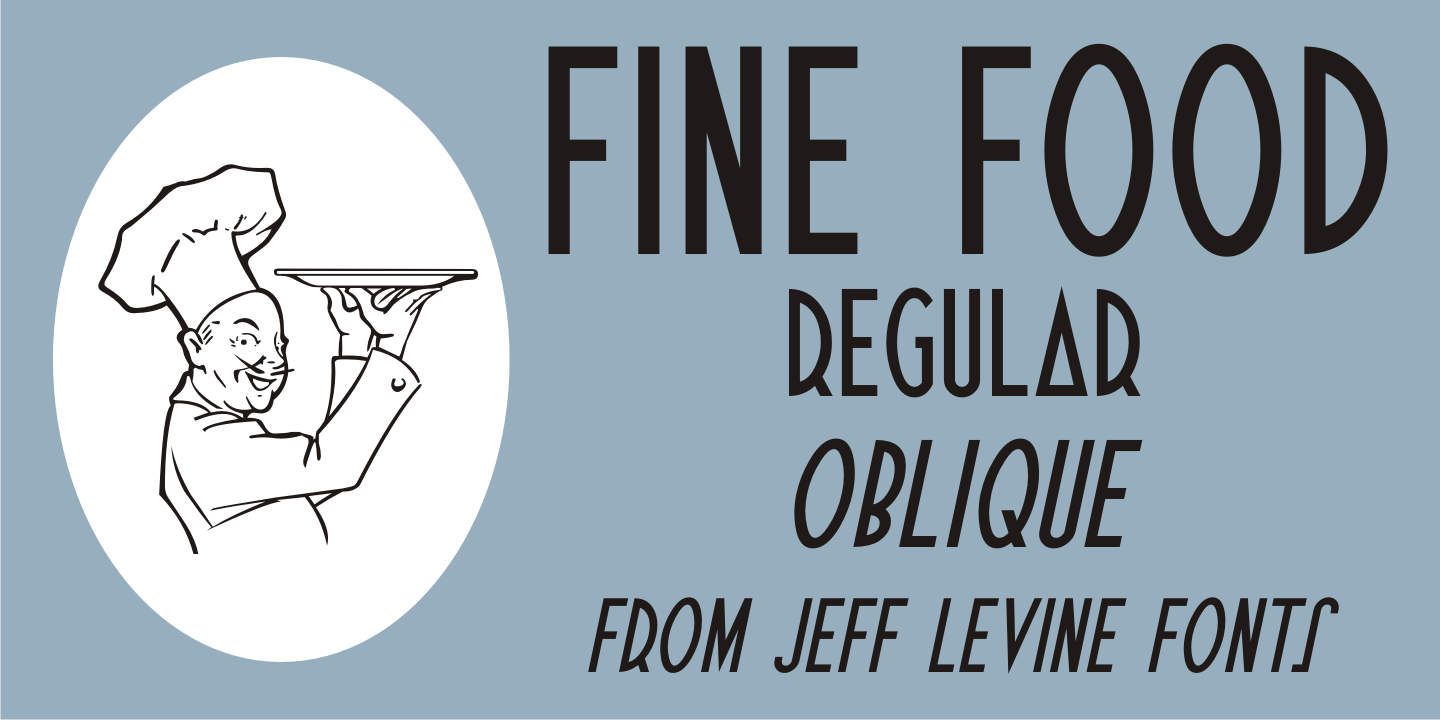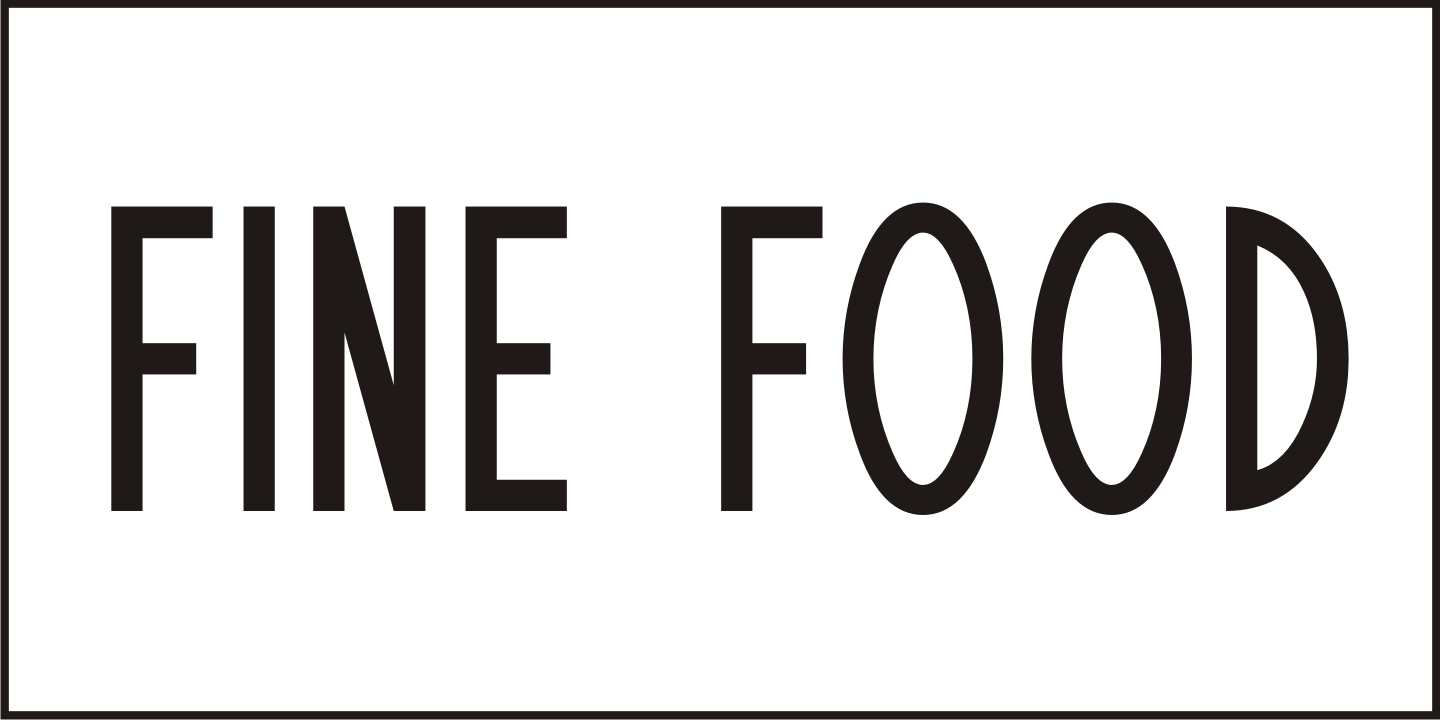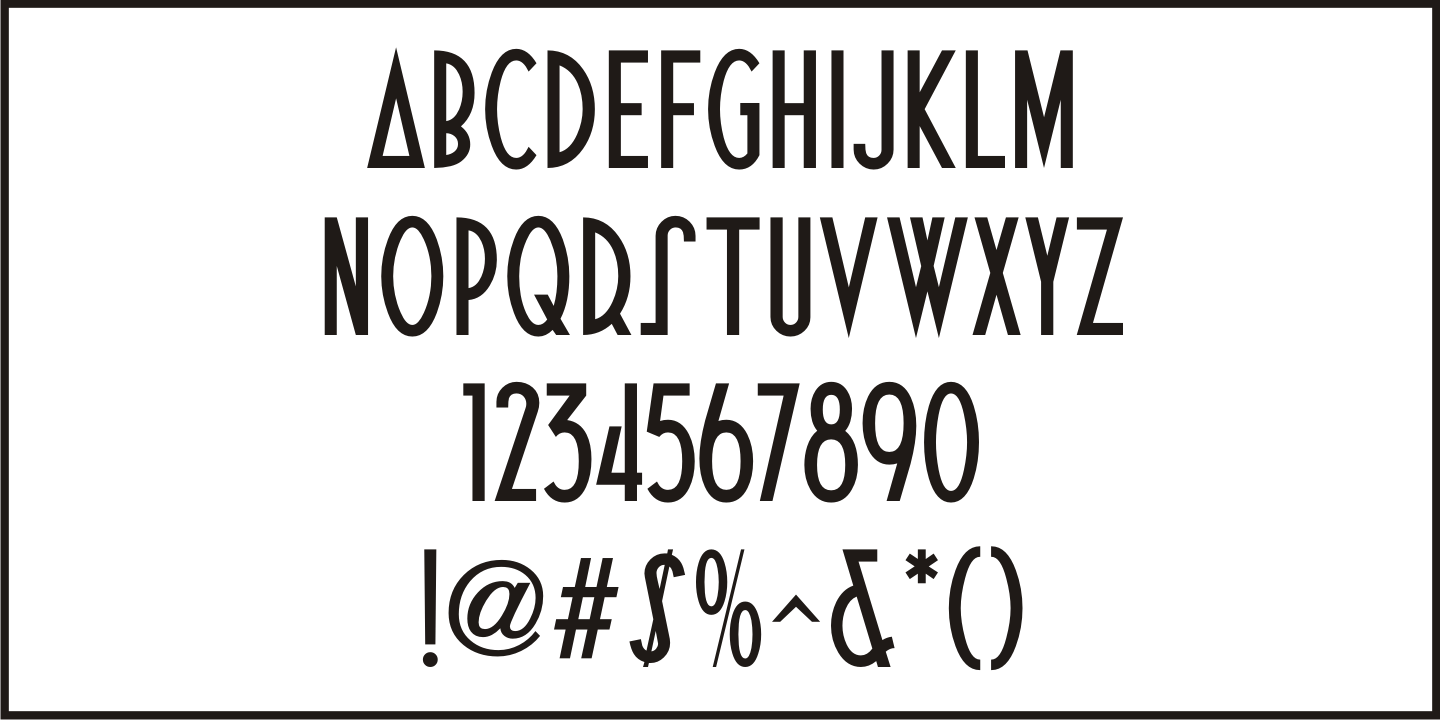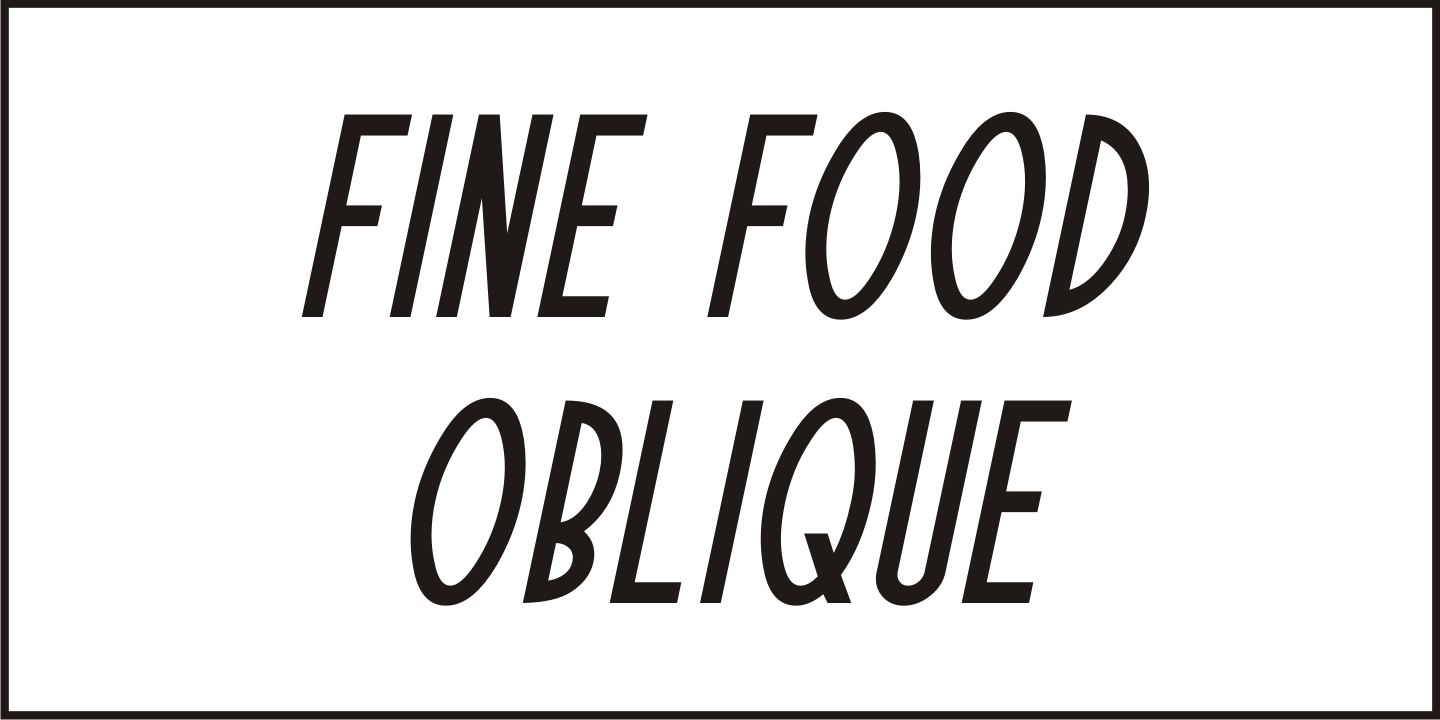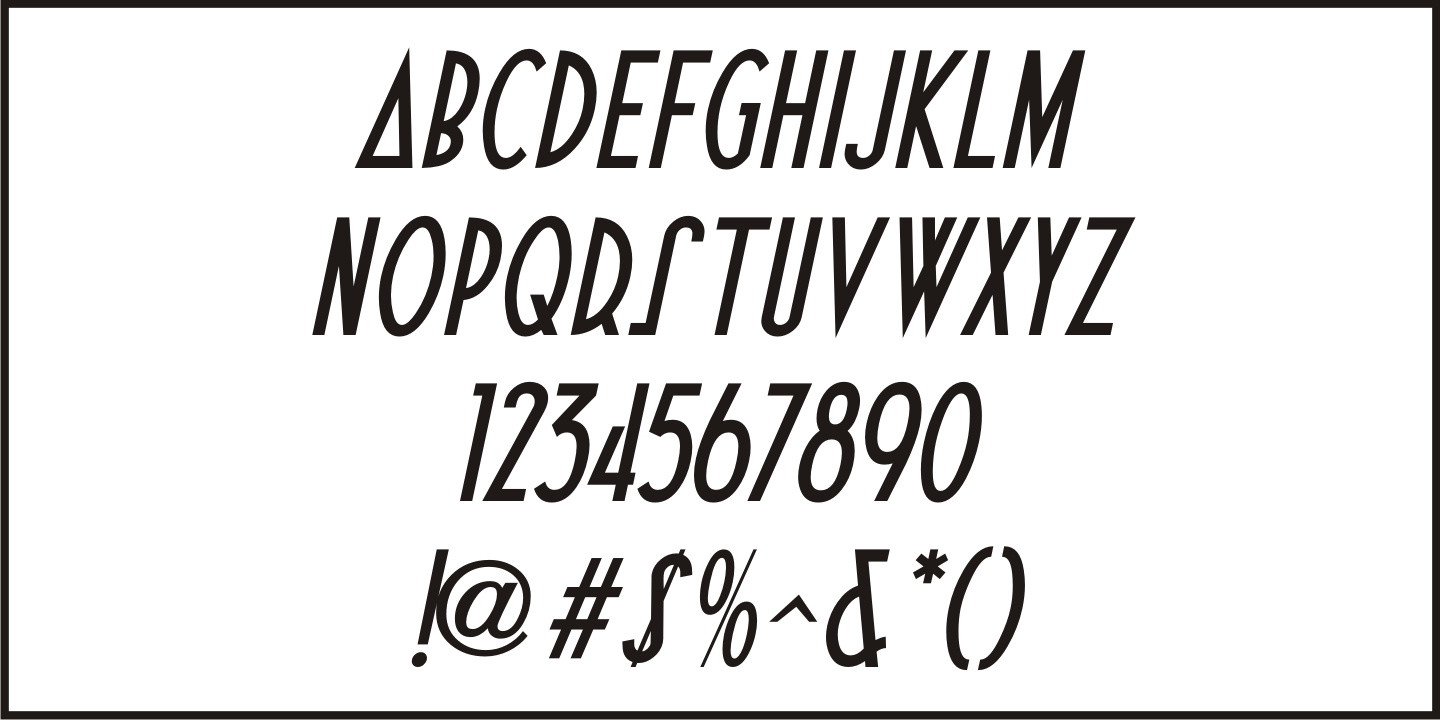
Fine Food
A 1942 photograph showing the exterior of the famous Hollywood restaurant Sardi’s and it’s unusually lettered sign was the inspiration for Fine Food JNL. Classically Art Deco, the Sardi’s sign had an ‘S’ looking like an inverted ‘J’ with a flat tail, a traditional ‘A’ replaced by a triangle and the ‘R’ composed of a ‘D’ with a diagonal extension. These elements were balanced against more traditional [but complementary] characters to retain the novel charm of the original signage. Fine Food JNL is available in both regular and oblique versions.
Fine Food JNL Regular by Jeff Levine Fonts